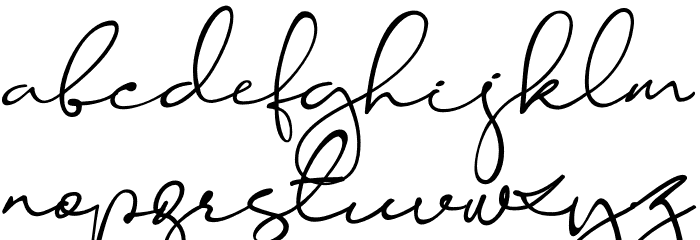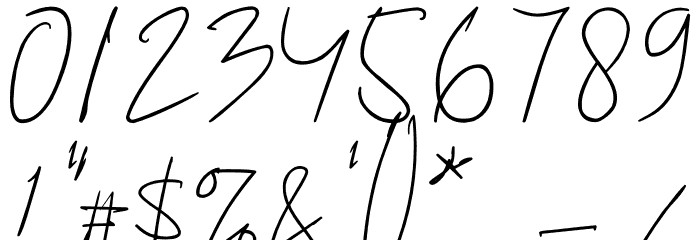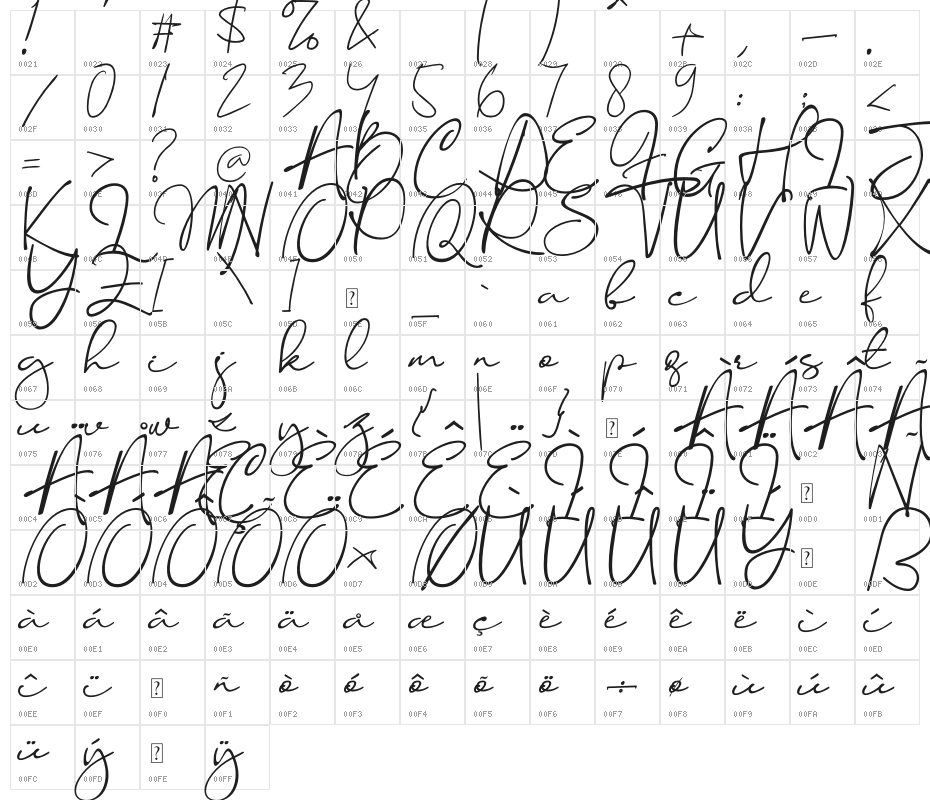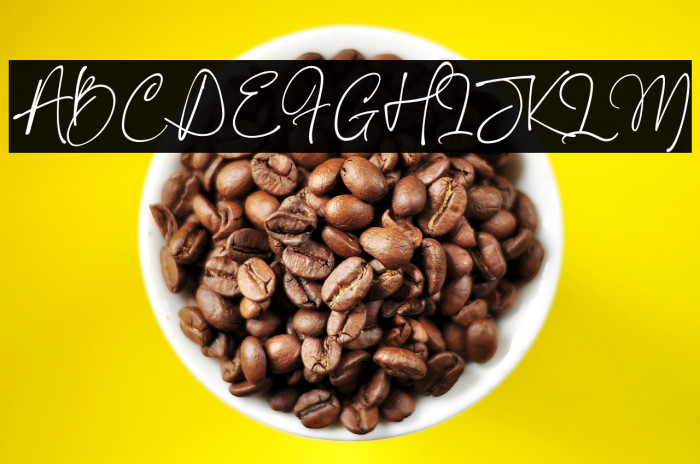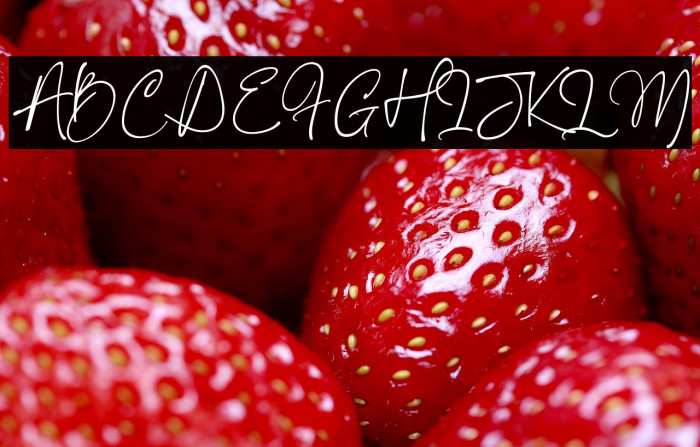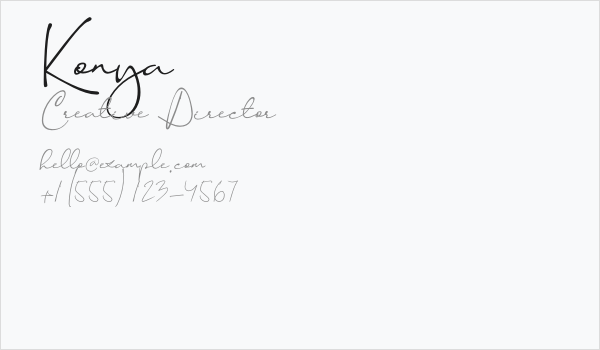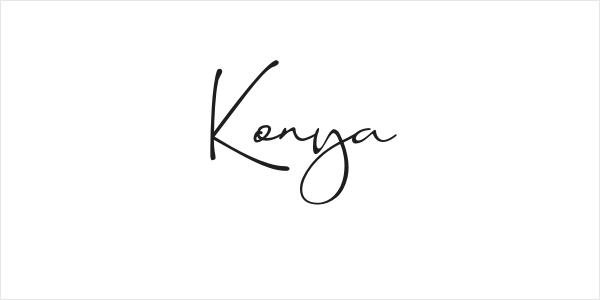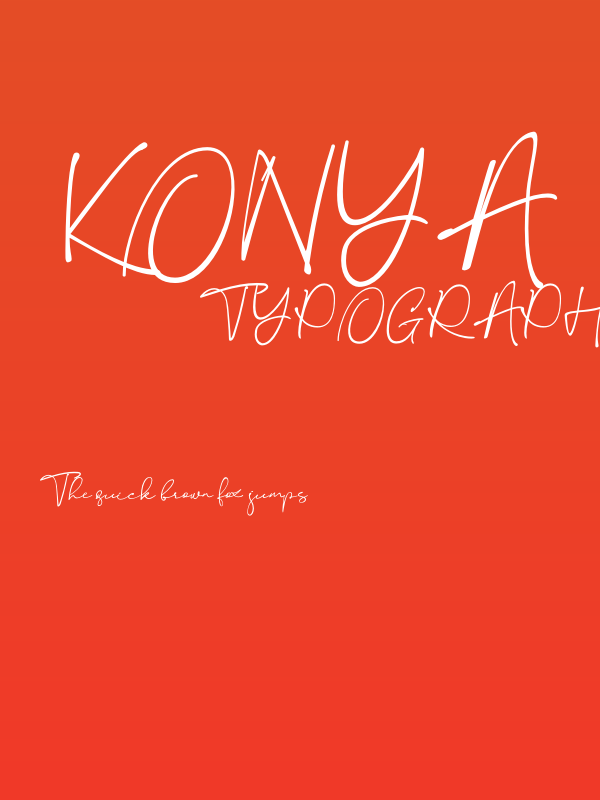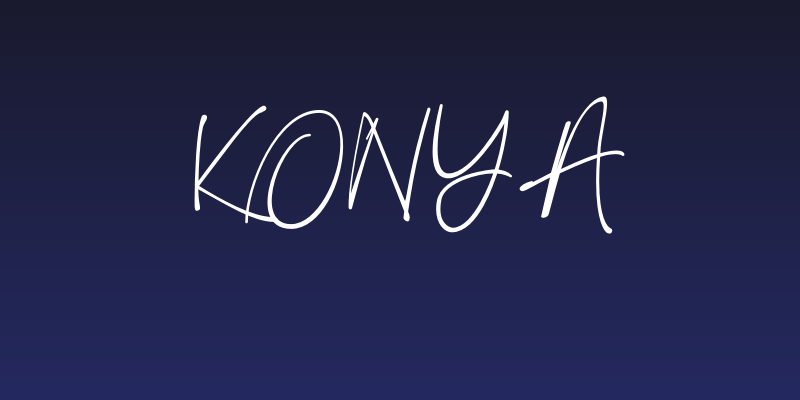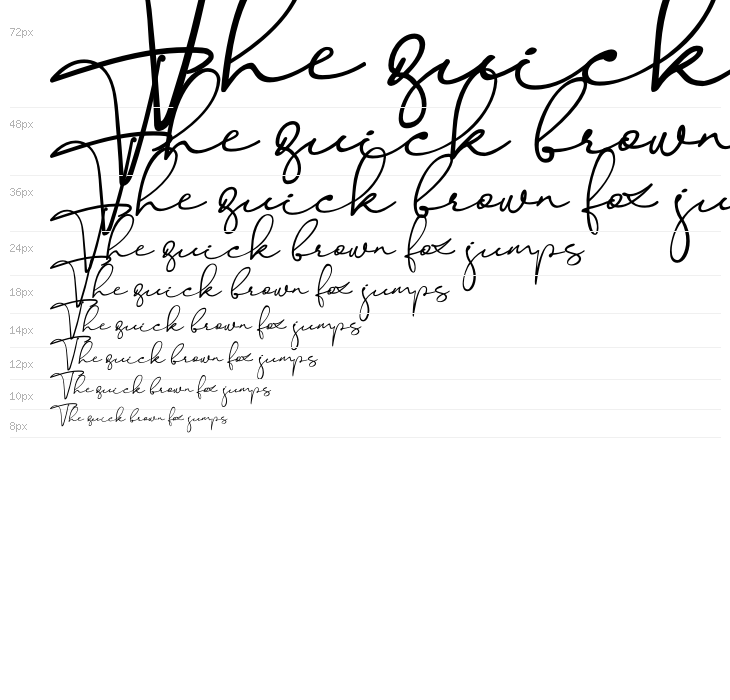
Konya Font
This font is a stylish and elegant script typeface that exudes a sense of sophistication and fluidity. The characters are crafted with smooth, flowing lines that mimic the natural motion of handwriting. Each letter connects seamlessly to the next, creating a cohesive and harmonious look. The uppercase letters are bold and prominent, while the lowercase letters maintain a delicate and graceful appearance. The numerals and special characters are designed with the same attention to detail, ensuring consistency throughout. This font is perfect for projects that require a personal touch or a sense of elegance.
A sophisticated and fluid script typeface with elegant, flowing lines.
- Font: Konya
- Proposed Projects: Ideal for wedding invitations, personal branding, elegant logos, and greeting cards.
- Category: Script
- Overall Style: Elegant
- Use Case: Logos, Invitations, Personal Branding